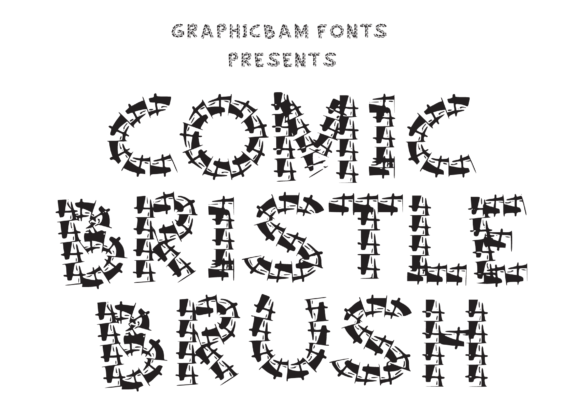
The Perfect Brush Stroke for Your Designs
Have you ever been brainstorming ideas for a new project, and suddenly, a spark of creativity hits you? It’s that moment when everything falls into place, and you know exactly what you want to create. For designers, this feeling is what drives us to push the boundaries of our craft and experiment with new styles and techniques. One such technique that can add a unique twist to your designs is the use of the Comic Bristle Brush Font.
This fun and quirky font is perfect for adding a playful touch to your designs. With its cool, retro vibe, the Comic Bristle Brush Font is sure to bring a smile to your viewers’ faces. And the best part? It’s incredibly versatile, making it a valuable addition to any designer’s toolkit. Whether you’re working on a children’s book, a social media campaign, or even a logo design, the Comic Bristle Brush Font is sure to bring a touch of whimsy and personality to your work.
Comic Bristle Brush Font Key Features
- Unique Characteristics: Hand-drawn, brush-style font with a distressed, vintage feel
- Style Variations: Includes 5 font styles: Regular, Italic, Bold, Bold Italic, and Outline
Comic Bristle Brush Font Review
At first glance, the Comic Bristle Brush Font appears to be a quirky and fun addition to any design project. ✨ Its unique, hand-drawn style evokes memories of old comic books and adds a touch of nostalgia to any text. The font’s bristle brush strokes and uneven letterforms create a sense of character and charm that’s hard to resist.
One of the standout features of Comic Bristle Brush Font is its versatility. ✨ It works well for a variety of applications, from headings and titles to body text and even logos. The font’s bold, expressive lines make it perfect for creating eye-catching graphics and promotional materials.
However, there are some limitations to consider. ⚠️ For one, the font’s uneven letterforms can make it difficult to read in certain contexts. Additionally, the font’s bristle brush style can be distracting if used extensively, particularly in large blocks of text.
Overall, I would say that Comic Bristle Brush Font is a great choice for designers looking to add a touch of whimsy and personality to their projects. Just be sure to use it judiciously and balance it with other fonts to avoid overwhelming the reader.
Pros:
- Unique, hand-drawn style
- Quirky and fun addition to any design project
- Works well for a variety of applications
Cons:
- Uneven letterforms can make it difficult to read in certain contexts
- Can be distracting if used extensively
Practical Application Guide for Comic Bristle Brush Font
Getting the Most Out of the Comic Bristle Brush Font
To get the most out of the Comic Bristle Brush Font, use it for:
- Creating cartoon-style text and graphics.
- Adding a playful touch to your designs.
- Highlighting important information or creating callouts.
Alternatives to Comic Bristle Brush Font
Great Vibes is a handwritten font that mimics the look of a brush-painted font. It has a relaxed, casual feel that’s perfect for titles and headings in creative projects. Great Vibes is more elegant than Comic Bristle Brush Font and has a more refined look.
Carolyna Pro is a modern script font that features a flowing, handwritten style. It’s ideal for use in branding, advertising, and editorial projects where a touch of elegance is needed. Carolyna Pro has a more sophisticated look than Comic Bristle Brush Font and is better suited for high-end projects.
Pacifico is a beautiful, handwritten font that’s reminiscent of a beachy, carefree vibe. It’s perfect for use in creative projects, such as posters, flyers, and social media graphics. Pacifico has a more laid-back, relaxed feel than Comic Bristle Brush Font and is better suited for projects that need a casual, friendly tone.
Q: What are the technical specifications of the Comic Bristle Brush Font?
The Comic Bristle Brush Font has a font size range of 8-72 points, with 400 characters per font. It supports a wide range of languages, including Latin, Cyrillic, and Greek. The font also includes a variety of stylistic sets and ligatures to enhance its brush-like appearance.